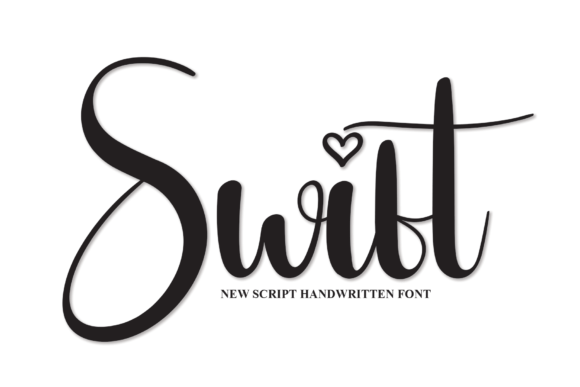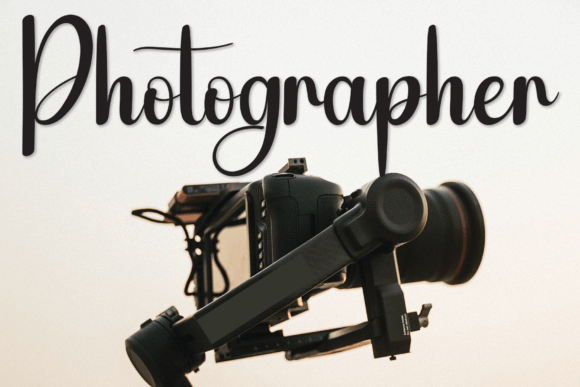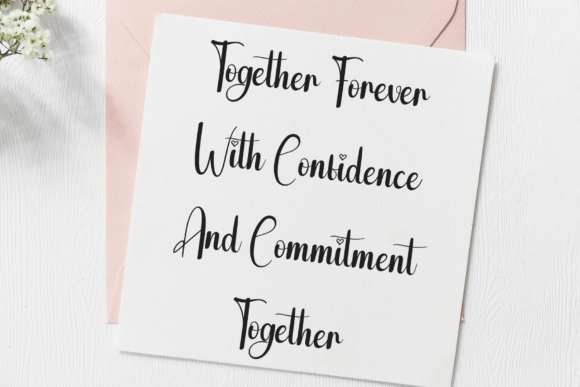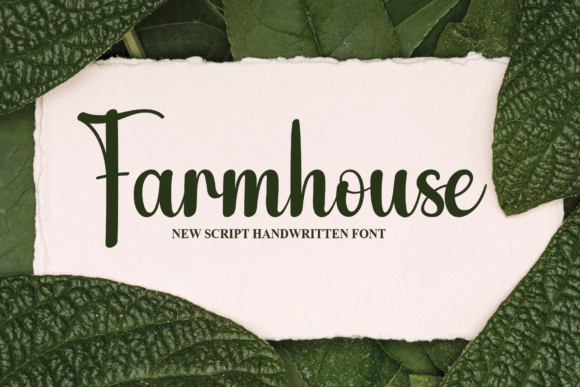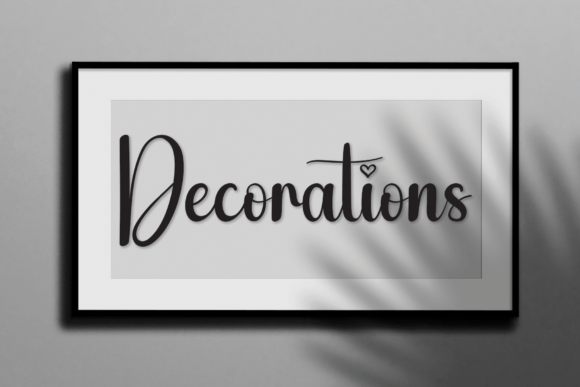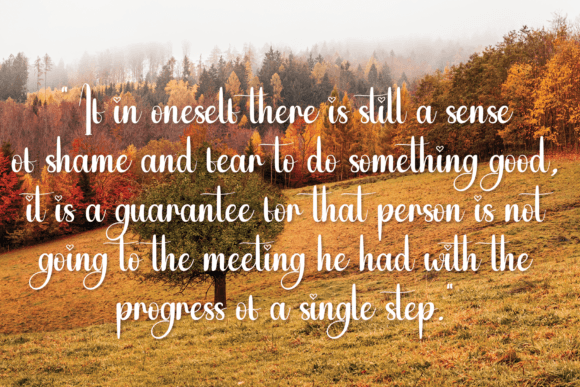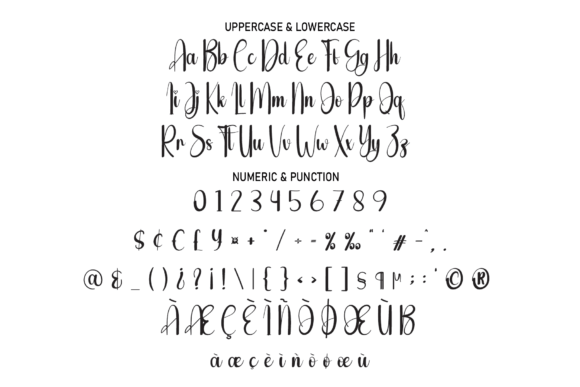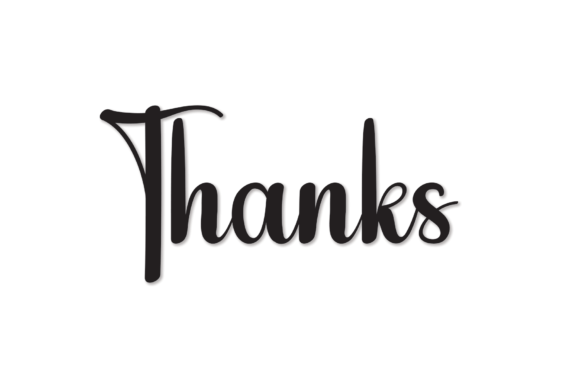
Swift
About Swift
special creative products for you, our products will give you an extraordinary experience.
the latest style letters are perfect for wall displays, wedding invitations, social media post logos,
advertisements, product packaging, product designs, labels, photography, watermarks, invitations, stationery,
and any project that requires taste handwriting.